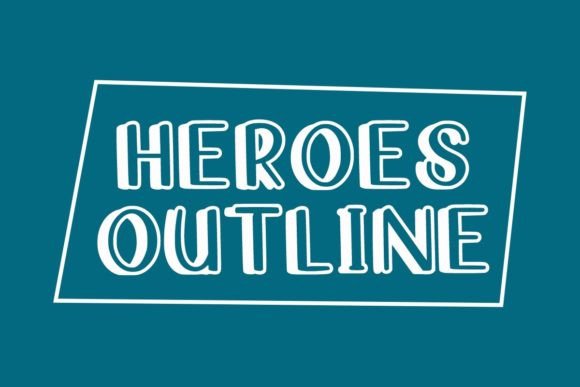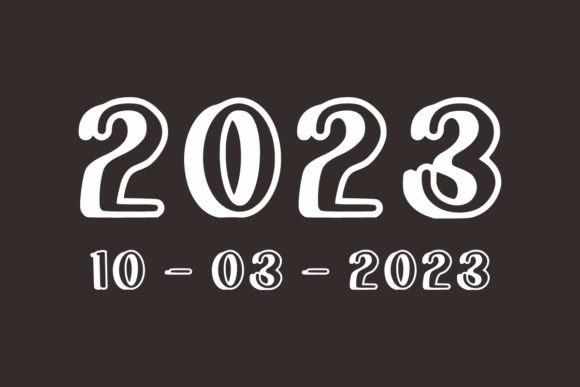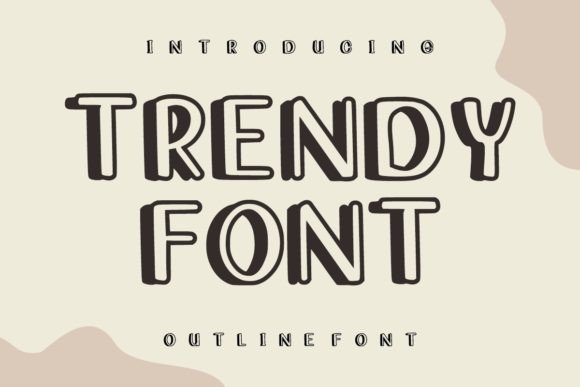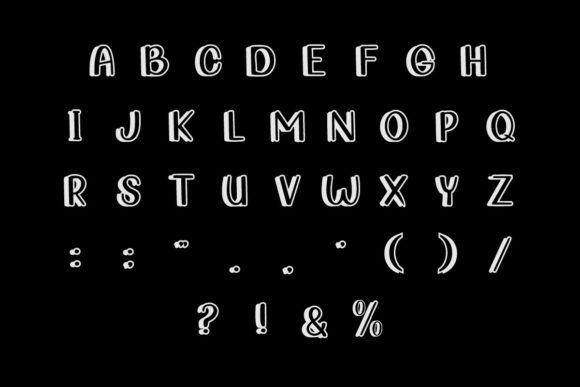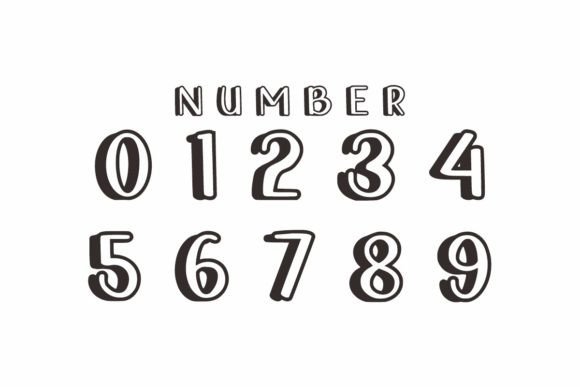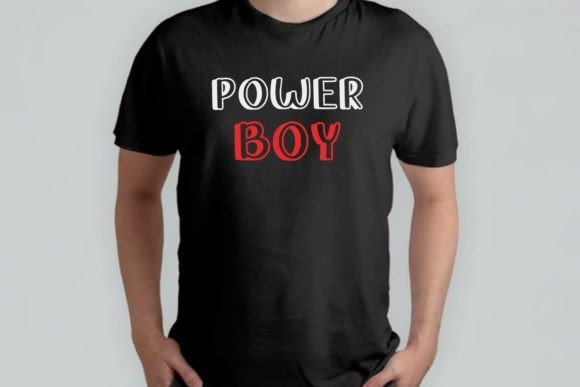
Introduction to Heroes Outline Font
As a designer, there’s nothing quite like the rush of finding the perfect font for a creative project. You’re staring at a blank canvas, and suddenly, all the pieces fall into place. The words flow effortlessly, and the design comes alive. That’s exactly what happens when you discover the Heroes Outline Font – a high-quality, adaptable display font that’s as friendly as it is assertive.
Whether you’re crafting greeting cards, designing presentations, or working on digital projects, the Heroes Outline Font is a valuable resource that can elevate your work. Its transparent background and crisp lines make it a breeze to read, even in large sizes. And with its free download option, you can get started right away.
- High-quality design: Heroes Outline Font offers a unique and stylish design perfect for creative projects.
- Transparent background: This font allows for a seamless integration with any background, making it ideal for designs that require a clean and minimalist look.
- Size and style flexibility: Heroes Outline Font offers a range of sizes and styles, from small to large, and from single-line to multi-line text.
- Perfect for creative projects: Heroes Outline Font is a great design resource for logos, posters, flyers, and other creative projects that require a unique and eye-catching look.
Honest Review: Heroes Outline Font
As a designer, I’m always on the lookout for unique and high-quality fonts to enhance my creative projects. Recently, I stumbled upon the Heroes Outline Font, and I’m excited to share my honest review.
Here’s what I like about this font: ✨ It’s incredibly versatile and can be used for a wide range of projects, from logos to web design. The transparent background feature is also a plus, making it easy to layer with other design elements. Additionally, the high-quality design ensures that it looks great even at larger sizes.
- Wide range of creative applications
Overall, I’m impressed with the Heroes Outline Font and would definitely recommend it to fellow designers. While it may not be perfect, its strengths far outweigh its limitations, making it a valuable addition to any design resource collection.
The Heroes Outline Font is a high-quality design resource perfect for creative projects. This free download offers a unique and stylish element that can elevate any design. With a transparent background, it’s easy to integrate into your project.
Some popular use cases for the Heroes Outline Font include:
- Creating eye-catching titles and headings.
- Adding a unique touch to social media graphics.
- Designing custom invitations and event materials.
Remember to experiment with different font sizes and colors to get the most out of the Heroes Outline Font.